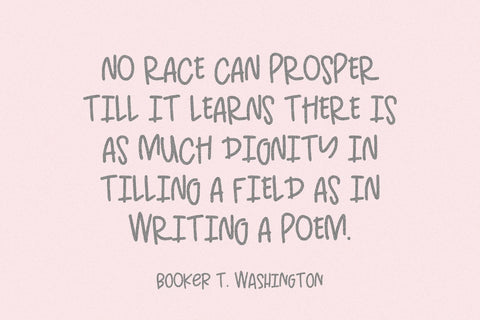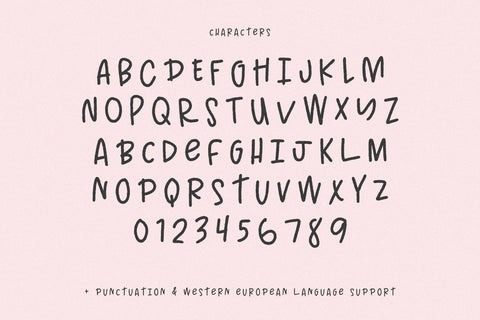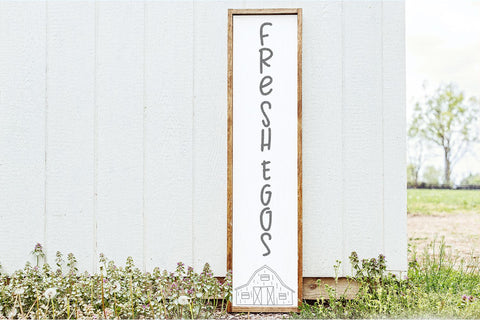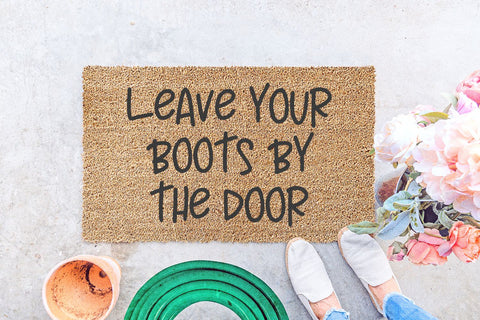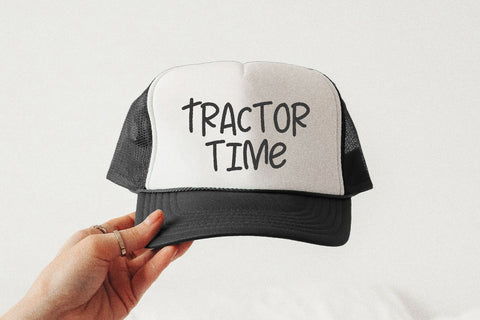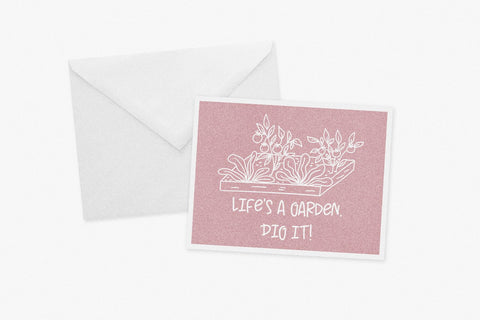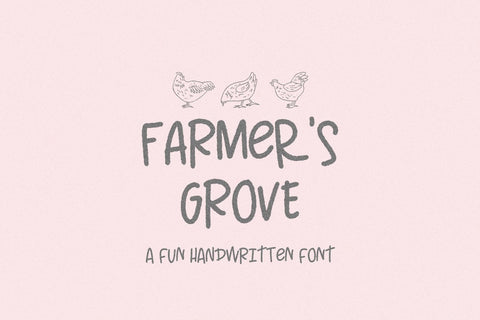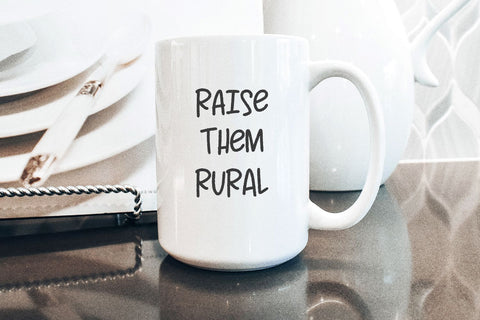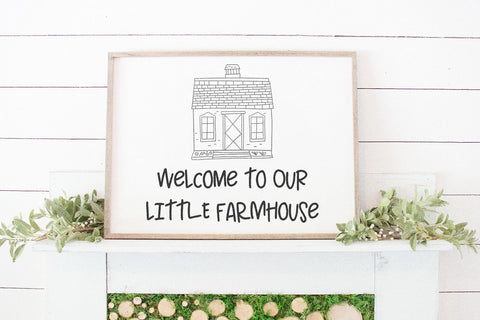
Farmer's Grove Handwritten Font
Say hello to Farmer’s Grove, a fun handwritten font. Farmer’s Grove is lightly textured & is mixed case, giving you flexibility with letter choice whether you’re typing all caps, all lowercase, or a mix of both! Farmer’s Grove is a little rustic with a bit of farmhouse style. Farmer’s Grove handwritten font is also perfect for logos & branding, greeting cards, painted banners, digital planners, note-taking apps, Canva, Cricut projects, Silhouette projects, designing SVG files, laser cutting projects, & more.
- full upper + lowercase characters
- numbers + punctuation